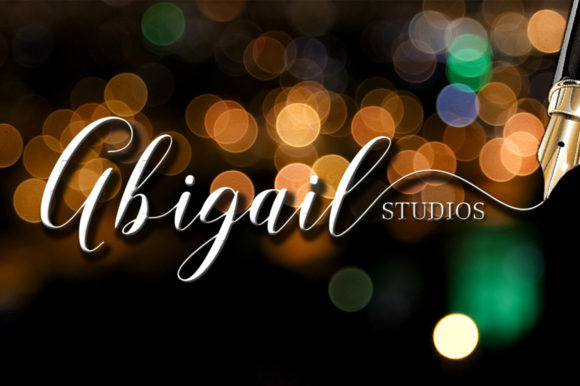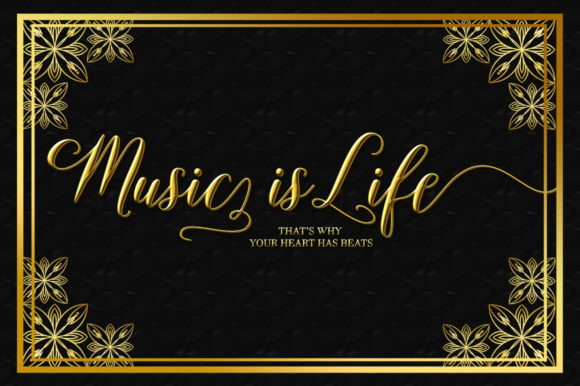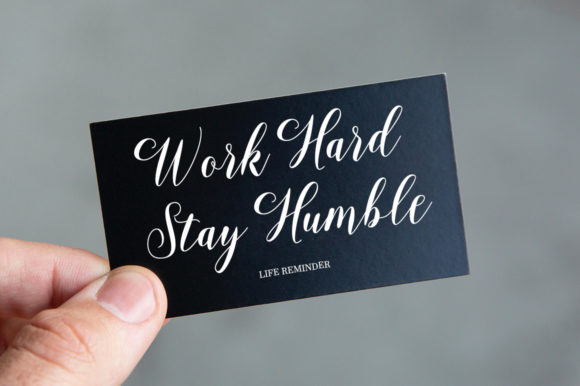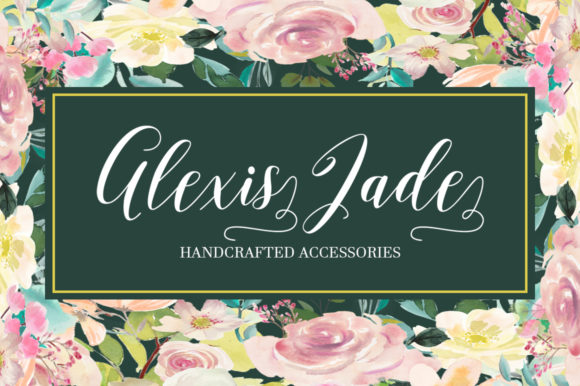
Discover the Timeless Charm of the Hawaii Font
As a designer, there’s nothing quite like the feeling of finding the perfect font to bring a project to life. I recall a particular moment when I was working on a wedding invitation design, and I stumbled upon the Hawaii Font. Its elegant curves and charming feel immediately captured my attention, and I knew I had to learn more.
The Hawaii Font is a beautiful, hand-drawn typeface that exudes a sense of sophistication and warmth. It’s perfect for adding a handwritten touch to wedding invitations, thank you cards, quotes, and any other design that needs a personal touch. With its PUA encoding, accessing all the glyphs and swashes is a breeze, making it a valuable tool for designers looking to add a unique touch to their work.
Hawaii Font Key Features
- Unique Characteristics: This font features a unique blend of traditional Hawaiian and modern design elements, making it a distinctive choice for graphic designers and typographers.
- Font Weight: Hawaii Font is available in light, regular, bold, and extra bold weights, allowing designers to choose the perfect weight to suit their design needs.
Hawaii Font Review
Overall, I’d say the Hawaii Font is a visually appealing choice for any tropical-themed project. ✨ The font’s unique blend of modern and vintage elements gives it a distinctive look that’s hard to ignore. The inclusion of Hawaiian-inspired motifs adds a nice touch of cultural authenticity.
- The font’s versatility makes it suitable for a wide range of applications, from logos and branding to web design and print materials.
- The font’s unique style helps to create a strong visual identity for any project that requires a Hawaiian or tropical theme.
- The font’s high-quality rendering ensures that it looks great at various font sizes and resolutions.
However, there are a few limitations to consider. ⚠️ The font’s complexity can make it challenging to use in certain situations, such as when working with limited color palettes or requiring high levels of customization.
Overall, I think the Hawaii Font is a great choice for designers looking to add a touch of tropical flair to their projects. While it may have some limitations, its unique style and versatility make it a valuable addition to any design toolkit.
Tips for Getting the Most Out of Hawaii Font
For optimal results, use Hawaii Font in bold or italic styles to add emphasis to your text. You can also pair it with other fonts to create a unique visual identity. Experiment with different font sizes and colors to find the perfect combination for your design.
Hawaii Font is perfect for:
- Summer-themed designs (e.g., beach, vacation, etc.).
- Island-inspired branding and marketing materials.
- Travel and tourism-related projects.
Alternatives to Hawaii Font
Bodoni is a classic serif font that originated in the 18th century. It’s characterized by its elegant and refined appearance, making it suitable for high-end designs, luxury brands, and formal documents. When to use: Fashion magazines, luxury brands, formal invitations.
Comparison to Hawaii Font: While Bodoni is more formal and elegant, Hawaii Font has a more relaxed and casual feel. Bodoni is better suited for high-end designs, whereas Hawaii Font is more versatile and can be used in a variety of contexts.
Playfair Display is an elegant and luxurious serif font that’s perfect for high-end designs, luxury brands, and formal documents. It features intricate details and ornate flourishes, making it a great choice for special occasions and events. When to use: Luxury brands, high-end weddings, special occasions.